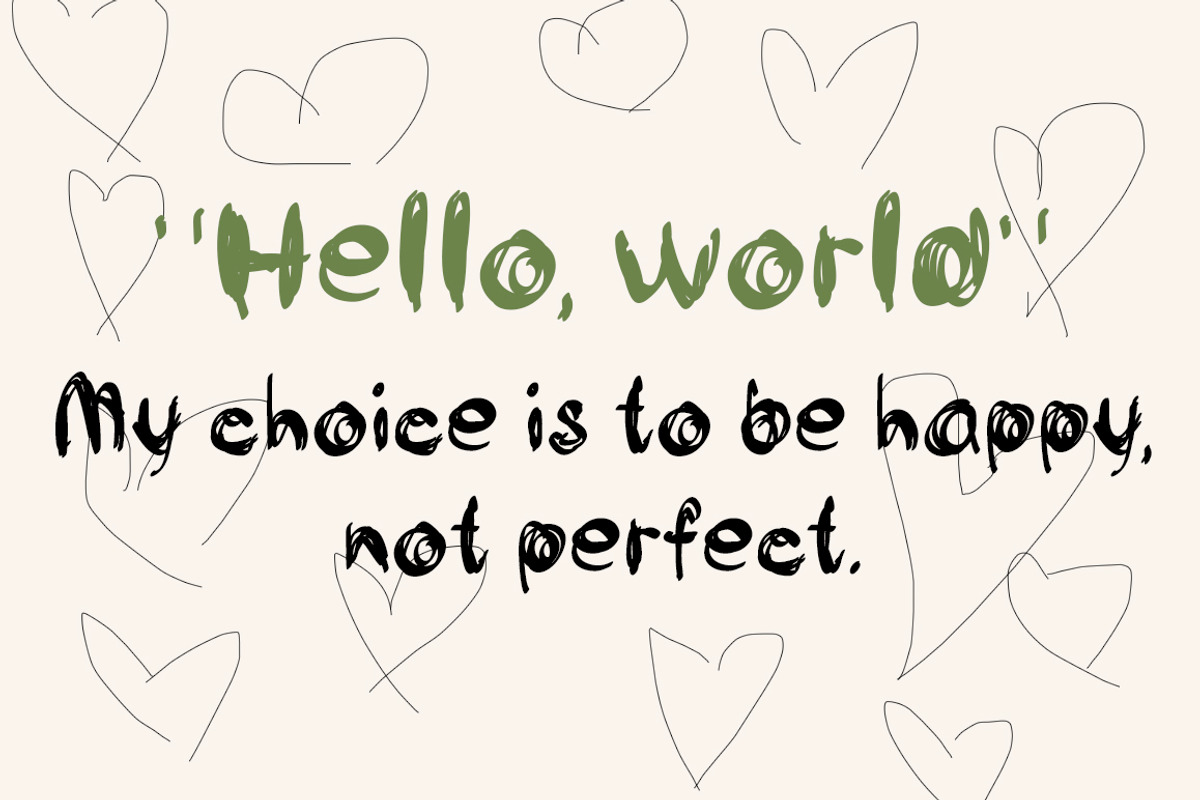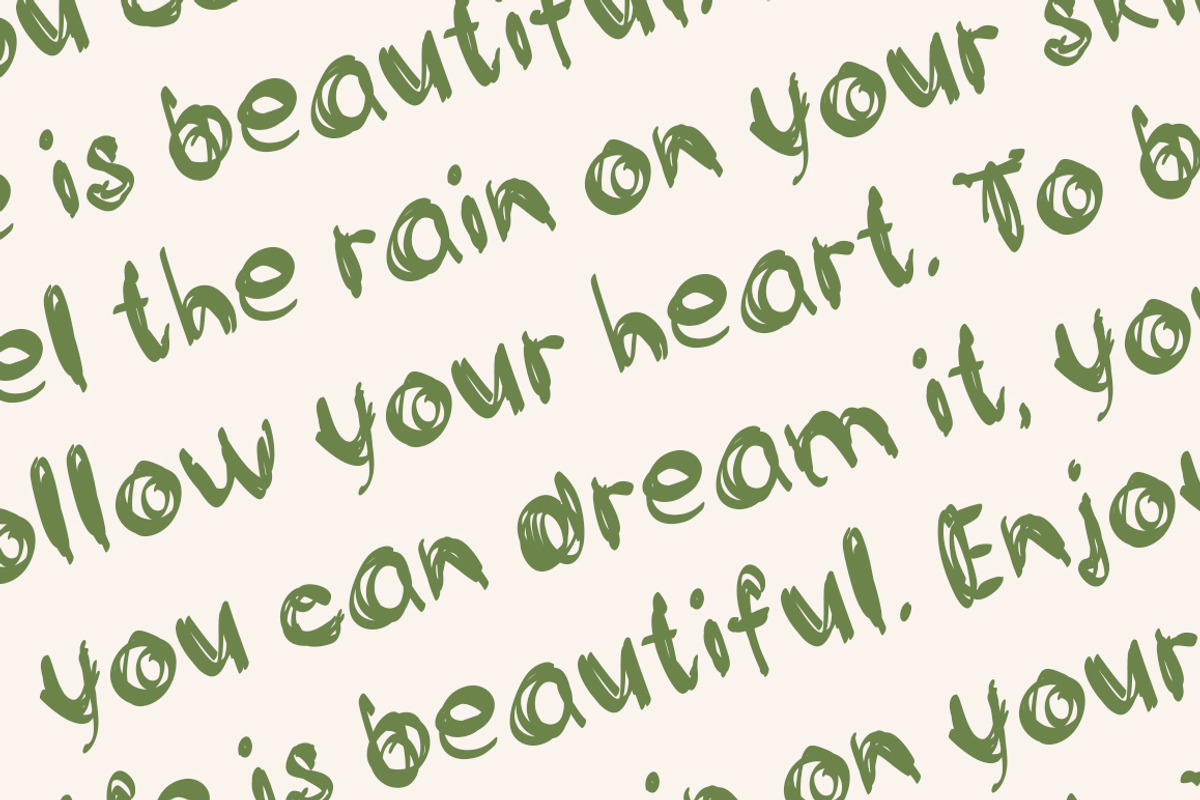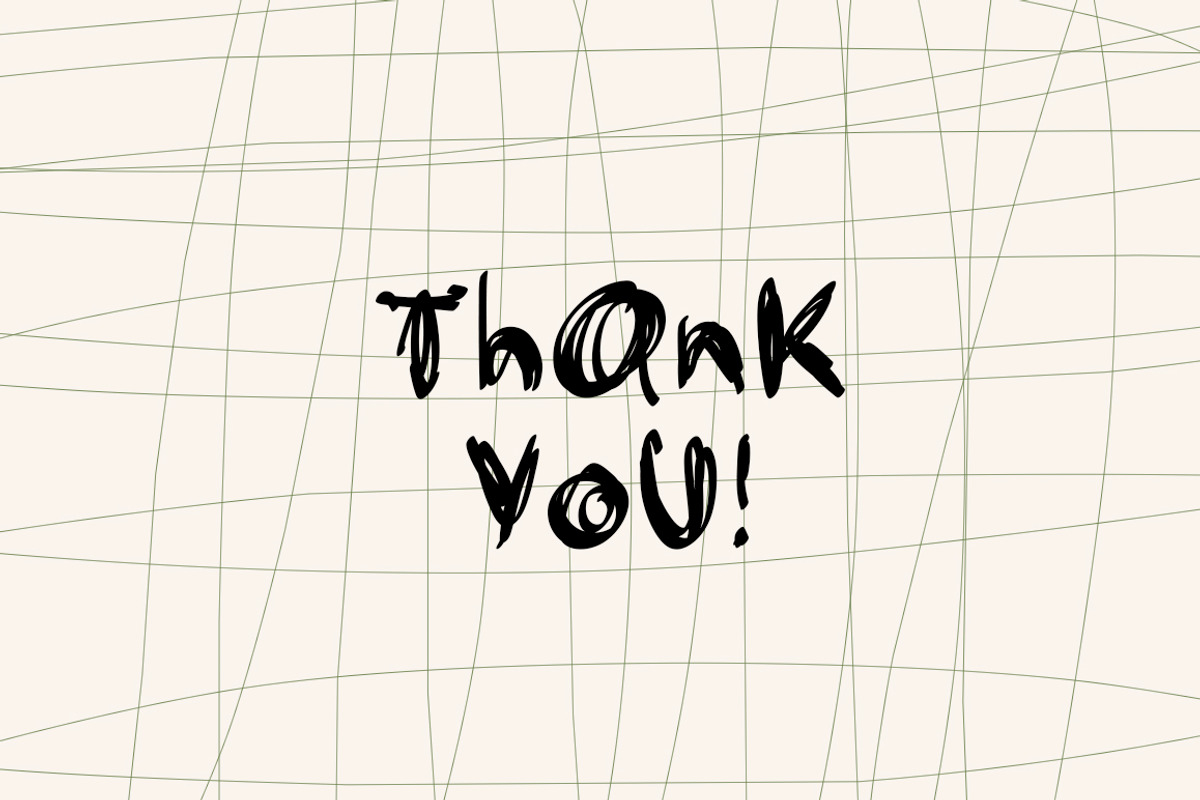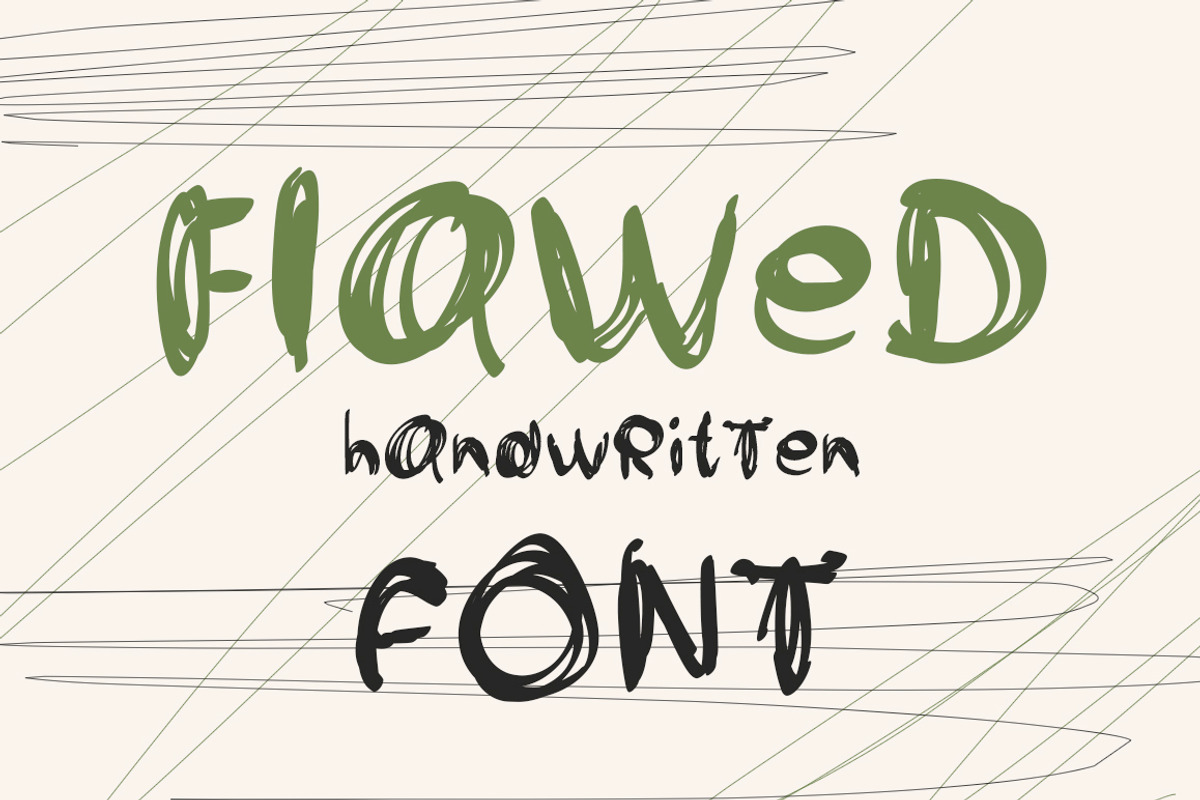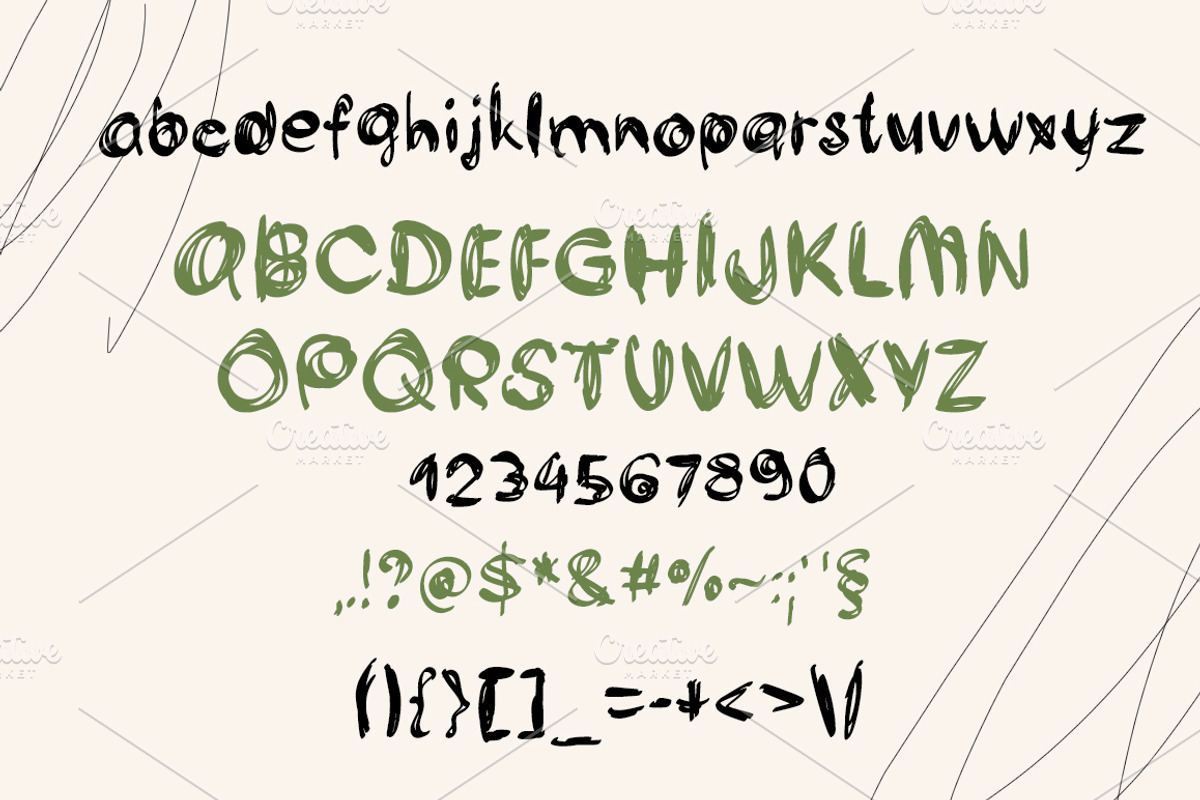
Flawed handwritten font
Imperfect hand-drawn display font with raw scribble texture and expressive uneven lines. This font combines messy organic strokes, playful shapes, and an artistic handmade feel. Perfect for posters, branding, packaging, album covers, social media graphics, kids designs, editorial layouts, and creative projects that need a bold imperfect personality.
Uppercase letters
Lowercase letters
Punctuation & symbols
Best for:
Poster design
Packaging
Branding
Artistic typography
Scrapbook & collage style
Handmade aesthetic projects